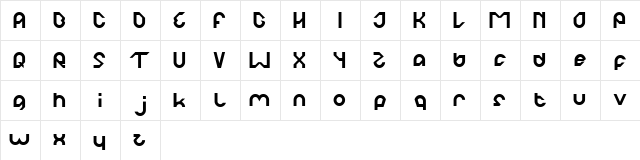
ROBO COP Regular Font Preview
ROBO COP Regular
ROBO COP Regular Font Details
Design Context for ROBO COP Typeface
ROBO COP is a composed and adaptable typeface that performs quietly and consistently across a wide range of design contexts.